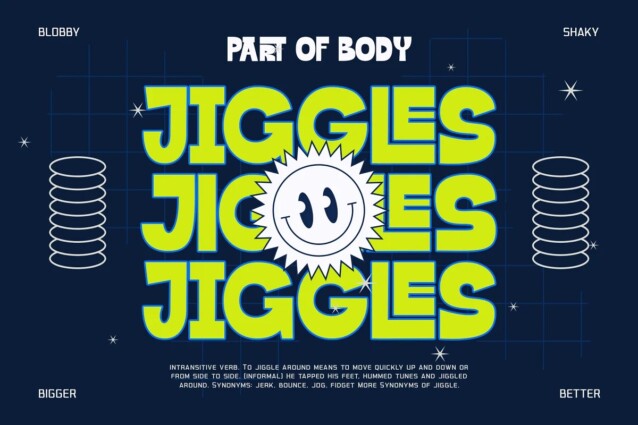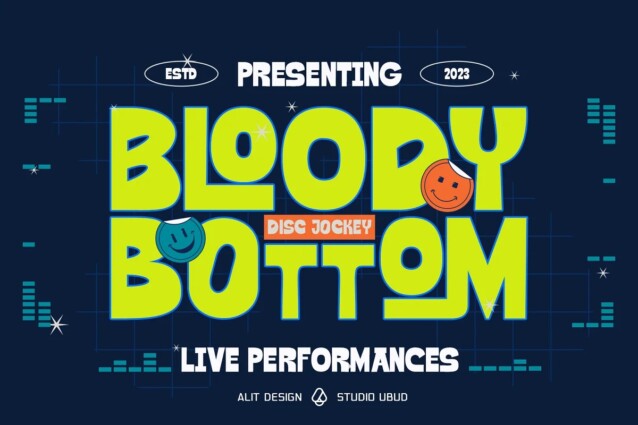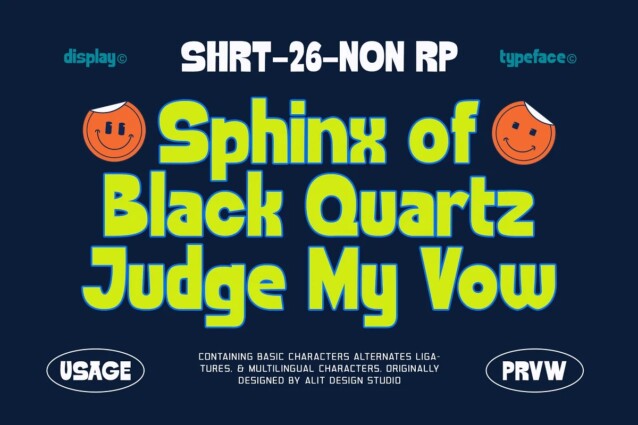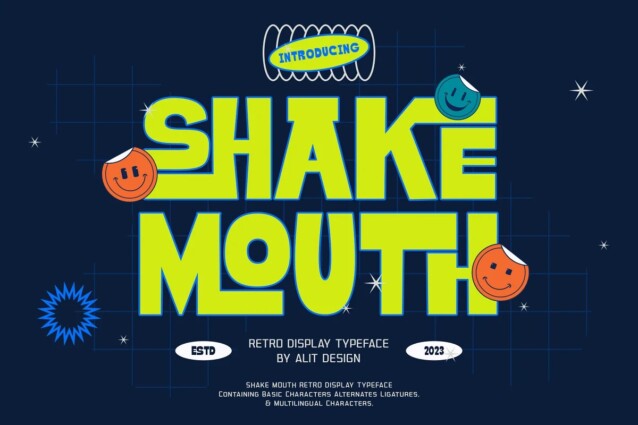
Shake Mouth Font
Shake Mouth Font is a chunky retro typeface with extra swooped letters. With its unique design and a plethora of features, “Shake Mouth” is a must-have font for designers, typographers, and creatives alike. It’s also ideal for Movie Font titles and School Font projects, thanks to its captivating and eye-catching design that’s sure to make your work stand out.